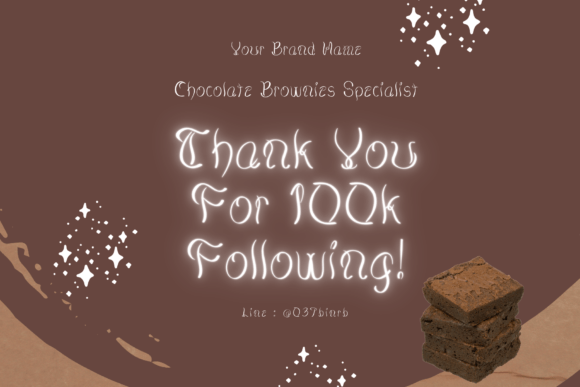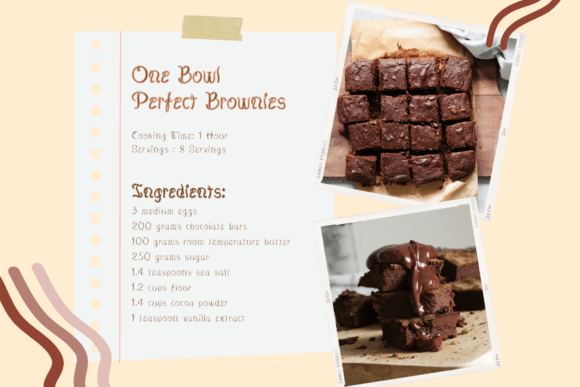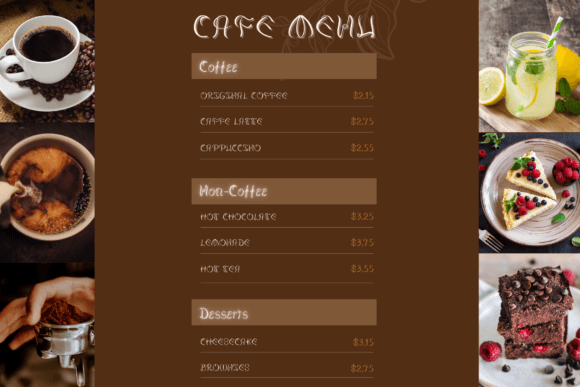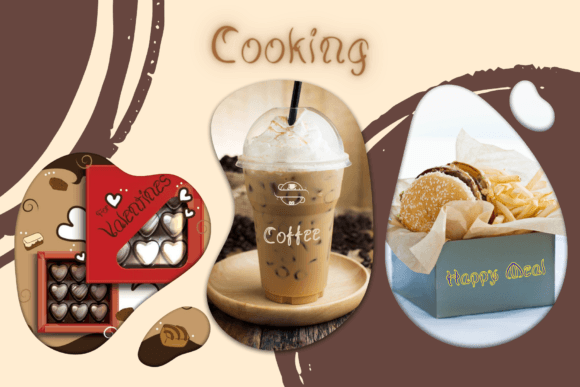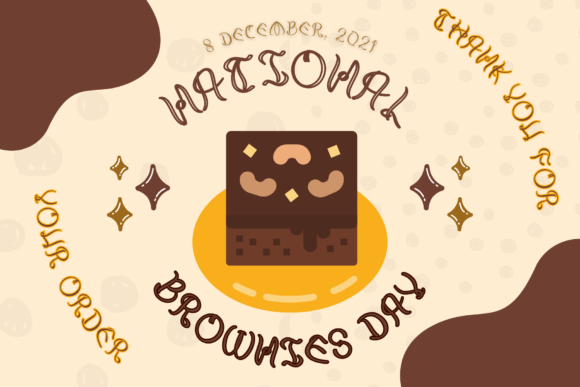
The Perfect Ingredient for Your Design Recipe
We’ve all been there – staring at a blank page, trying to come up with the perfect concept for our next design project. And then, it hits us – a burst of creativity, a spark of inspiration, and suddenly, our ideas start flowing. For designers, finding that perfect spark can be the difference between a good design and a great one.
That’s where the Brownies Font comes in – a quirky handwritten font that adds a touch of whimsy and personality to any project. Its playful, uneven strokes create a fun and lighthearted vibe, perfect for designs that need a little extra charm. Whether you’re designing a logo, a poster, or a social media campaign, the Brownies Font is a valuable addition to your design toolkit.
Brownies Font Key Features
- Font Family: Brownies is a unique, handwritten font designed to resemble handwriting.
- Unique Characteristics: The font features a dynamic, expressive feel with varying line widths, making it perfect for creative projects and titles.
Brownies Font Review
At first glance, I was drawn to the playful, handwritten feel of the Brownies Font. ✨ The subtle imperfections and variations in line width give it a natural, hand-drawn look that’s perfect for adding a touch of whimsy to your designs. ✨ The font’s boldness and legibility make it suitable for a wide range of applications, from titles and headings to body text.
However, I do have a few reservations about the Brownies Font. ⚠️ One of its main limitations is its limited character set. ⚠️ I was unable to find a complete set of punctuation marks and some special characters, which may be a concern for designers who need to use these in their work. ⚠️ Additionally, the font’s uneven letter spacing can make it difficult to read in certain contexts.
- Handwritten, playful feel
- Subtle imperfections and variations in line width
- Bold and legible
- Limited character set
- Uneven letter spacing
Overall, I think the Brownies Font has a lot of potential, but it may not be the best choice for designers who need a highly customizable or comprehensive font. With a bit of editing and tweaking, however, it could be a great addition to any design project.
For the most effective use of Brownies Font, use it in headings and titles to add a touch of whimsy and personality to your designs. It’s particularly well-suited for children’s books, food blogs, and creative marketing materials.